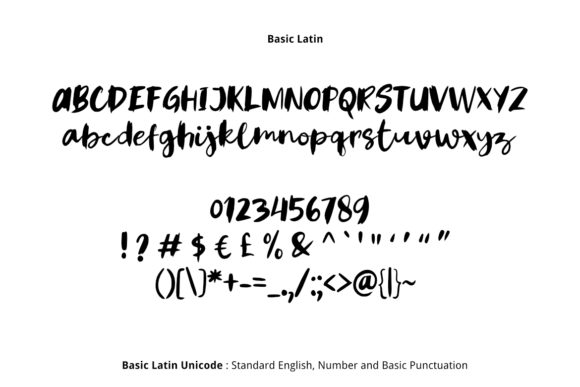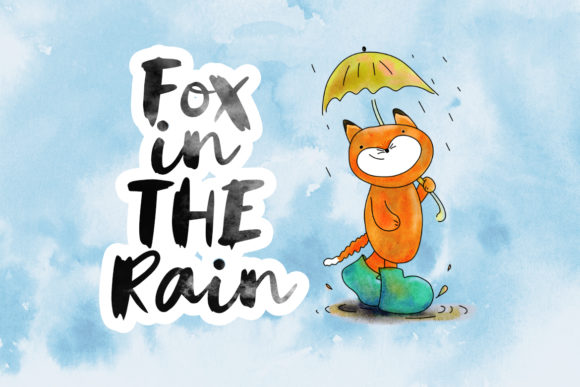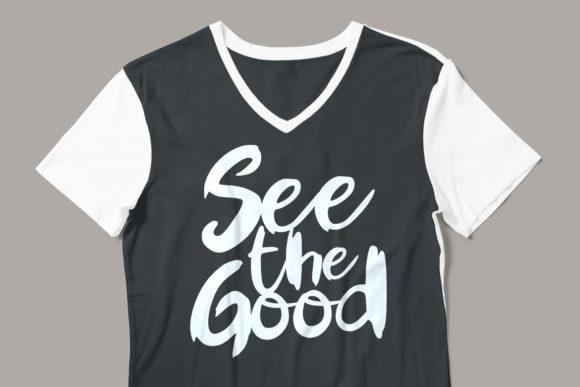
Rainy Day Font
About Rainy Day Font
Rainy Day is a simple, yet cute script font that contains gorgeously authentic letters. It will take any arts & crafts project to the next level.